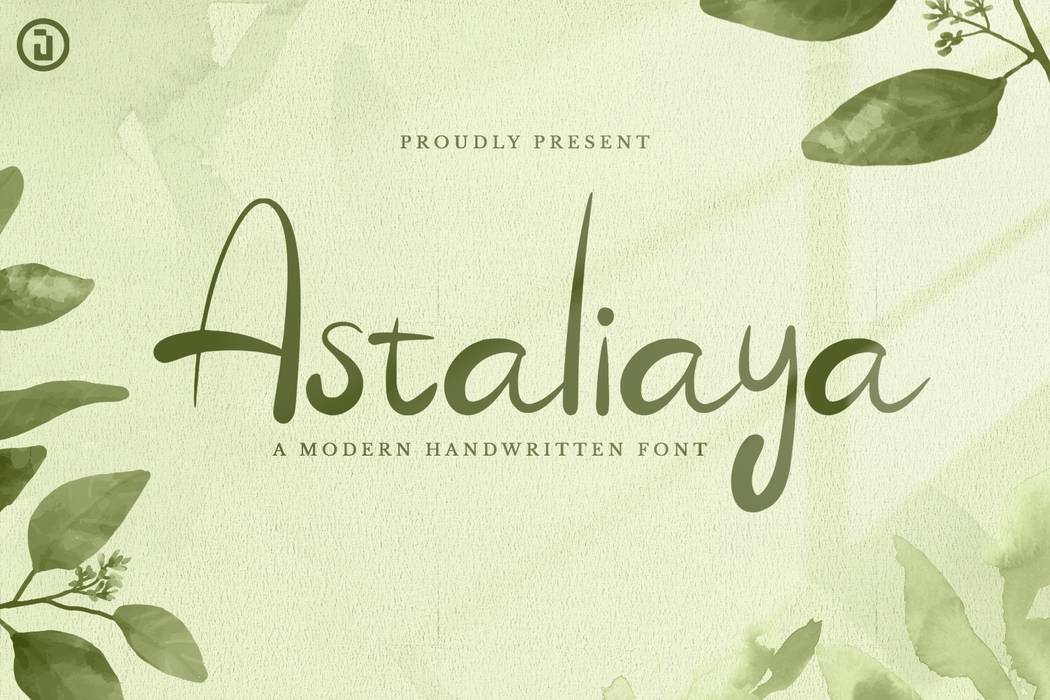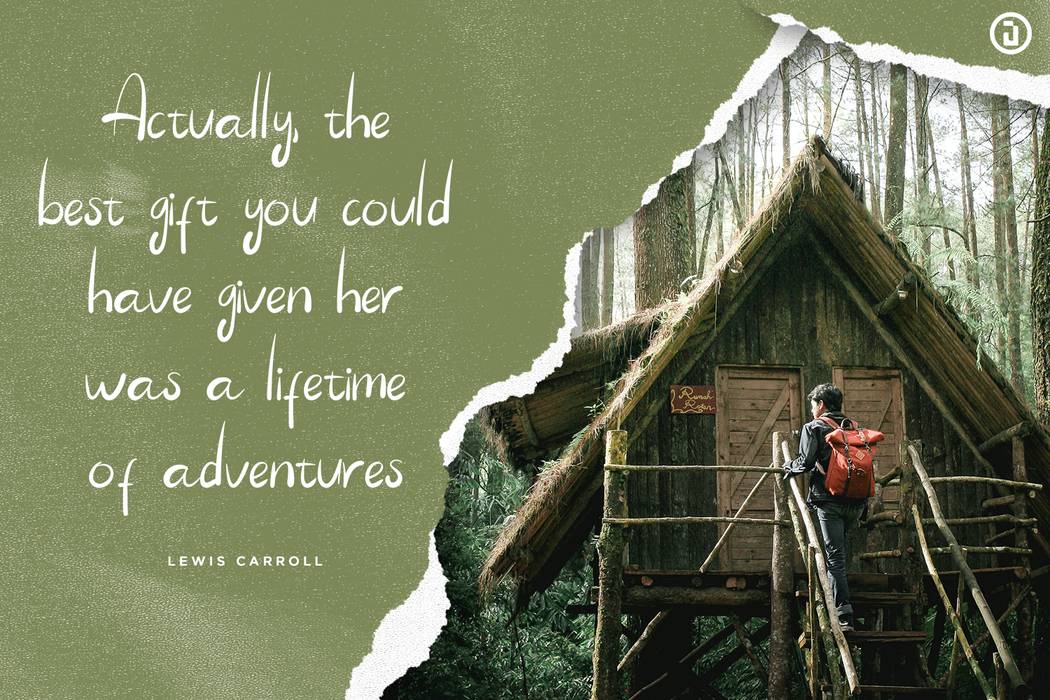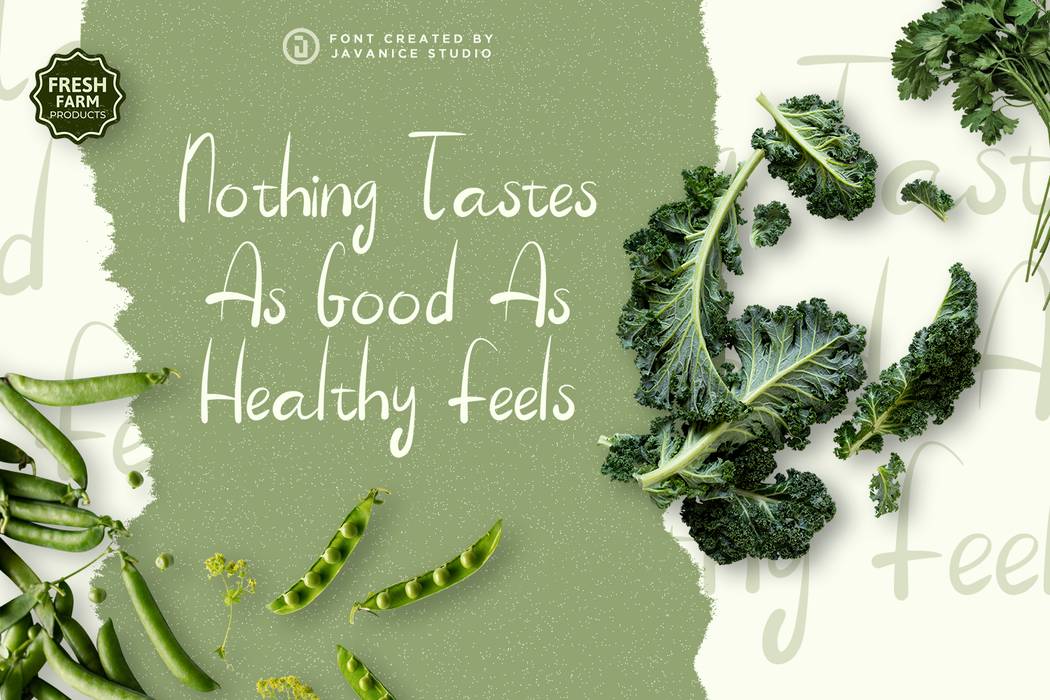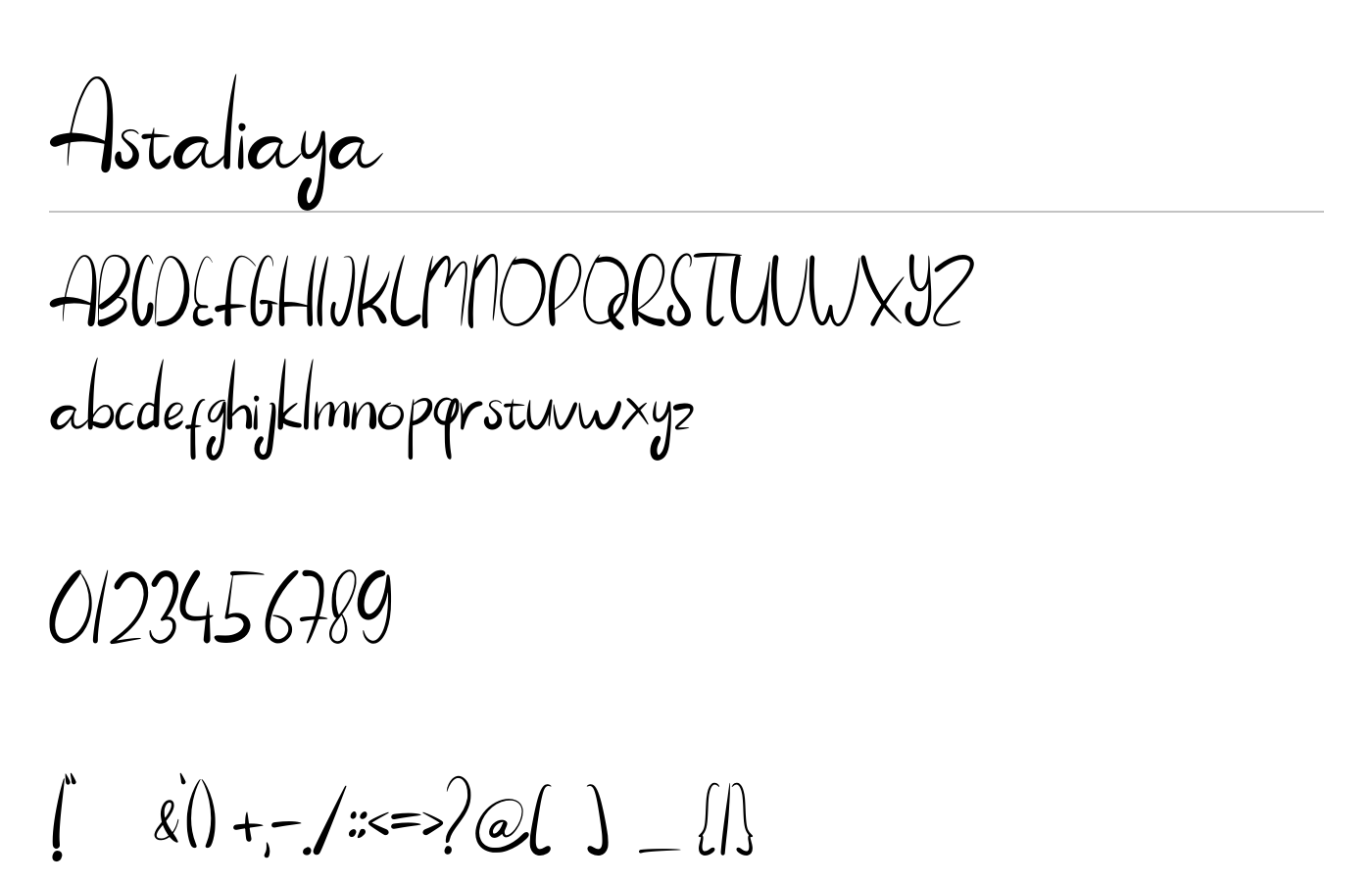
Astaliaya is a casual, handwritten script font with a light and airy feel, characterized by tall, narrow letterforms and smooth, flowing strokes. Its playful yet elegant style makes it ideal for creative branding, invitations, and lifestyle projects that seek a personal and approachable touch. This font works well in headlines and decorative text, where its unique handwritten charm can truly stand out.
Astaliaya Font
About Astaliaya Font
| Font family | Astaliaya Font |
| Designer | JAVANICE STUDIO |